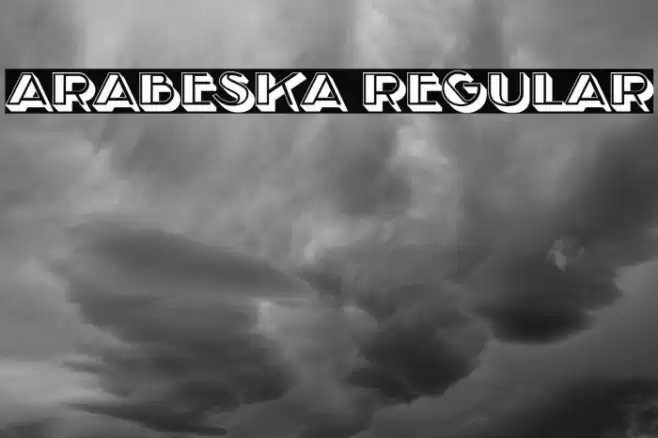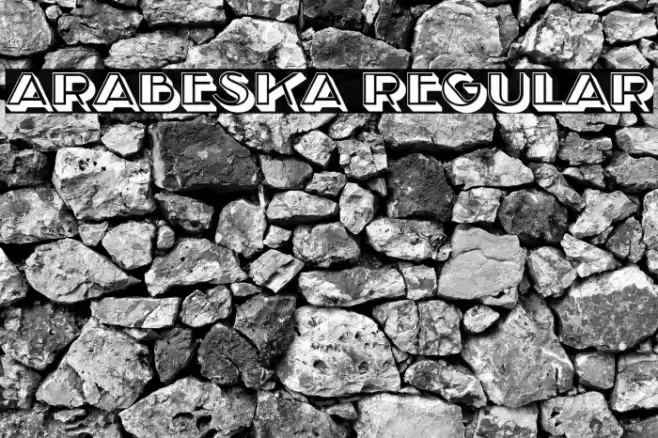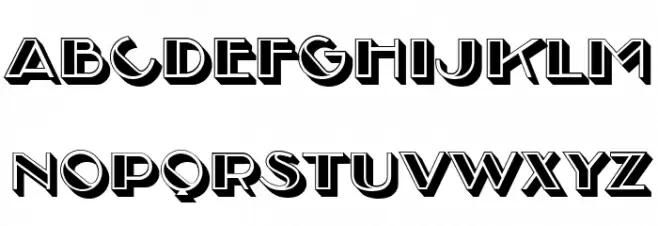
Arabeska Regular Font
Arabeska Regular Description
This font features a bold and striking design with a three-dimensional effect, achieved through the use of shadowing and layering. The characters are uppercase, with a geometric and angular style that gives them a modern and dynamic appearance. The font's unique structure is characterized by sharp edges and clean lines, creating a sense of depth and movement. The boldness of the letters makes them stand out, while the shadow effect adds an element of sophistication and complexity. This font is ideal for making a strong visual impact, suitable for various creative and artistic projects.
A bold, geometric font with a 3D shadow effect, perfect for impactful designs from Uncategorized fonts.